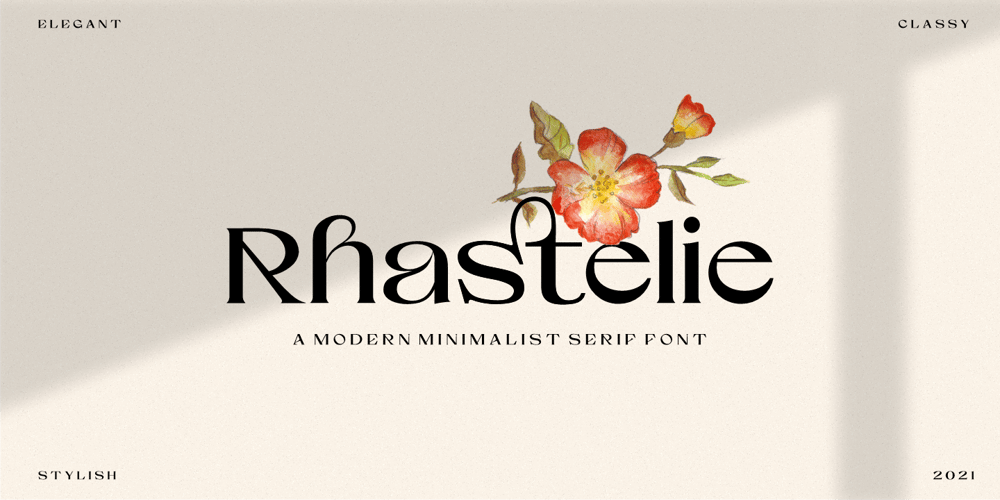
Rhastelie
Rhastelie font
Rhastelie Font Family was designed by Risca Anitawati and published by Reyrey Blue Std. Rhastelie contains 1 styles and family package options. Introducing our new “Rhastelie” Elegant Serif Font with beautiful and luxury touch. Rhastelie will pair beautifully with many fonts and work well with whatever project you’re working on.Rhastelie is perfect choice for people looking for clean, modern, minimalist, elegant, beauty design styles. Suitable for almost any graphic designs such as logo, branding materials, business cards, gift cards, t-shirt, cover, thumbnail, print, poster, photography, quotes .etcFeatures :· All Uppercase and Lowercase· Number & Symbol· Supported Languages· Alternates and Ligatures· PUA Encoded